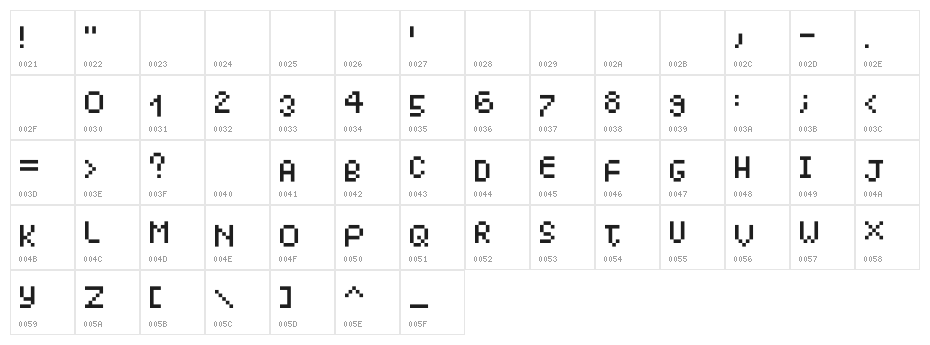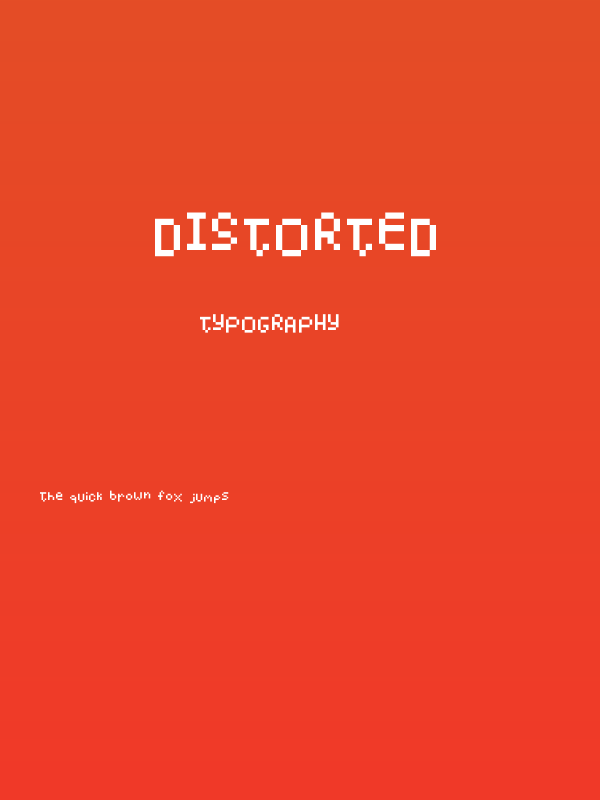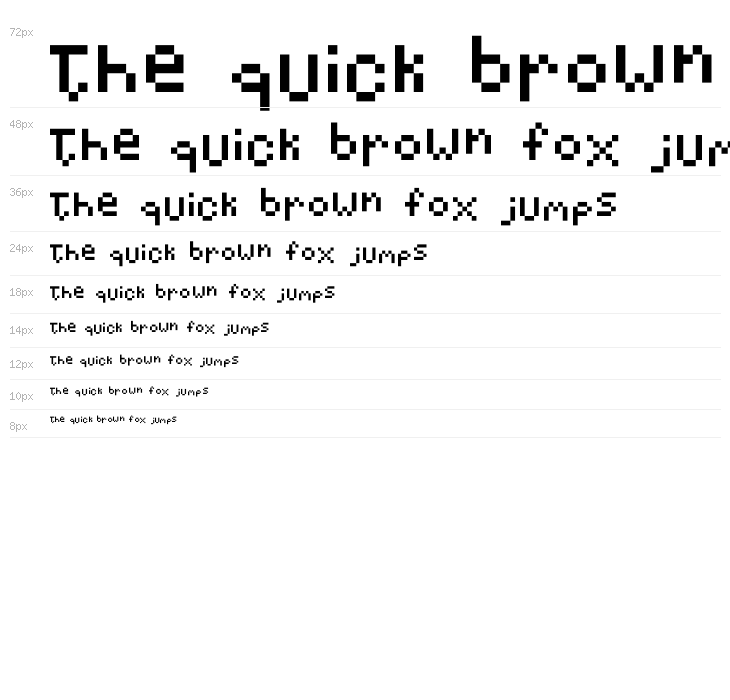
Distorted Font
Distorted Description
This font features a pixelated, blocky design reminiscent of early digital displays and retro video games. Each character is constructed with a grid-like pattern, giving it a distinctly digital and geometric appearance. The uppercase and lowercase letters maintain a consistent height, contributing to a uniform look. The numerals and special characters follow the same pixelated style, ensuring cohesion across all glyphs. This font's nostalgic aesthetic makes it ideal for projects that aim to evoke a sense of vintage computing or gaming.
| Overall Style | Vintage |
| Use Case | Logos, Headlines, Posters |
| Proposed Projects | Ideal for retro video game designs, digital art projects, tech-themed posters, and nostalgic branding. |